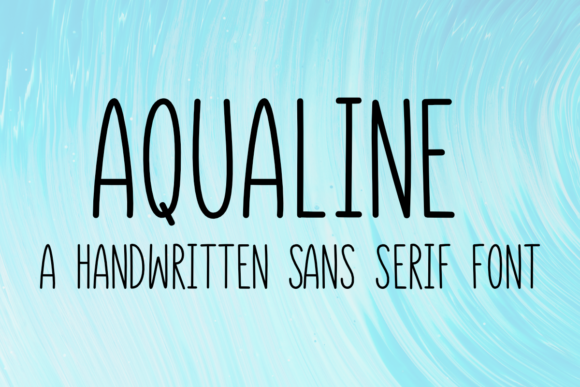
Aqualine: The Striking Sans Serif for Unforgettable Creations
In the world of typography, there's a font that stands tall and proud, captivating the eyes with its simple yet striking presence. Meet Aqualine, the game-changer sans serif font that will transform your creative vision into masterpieces.
Aqualine's tall and slender structure exudes sophistication, making it the perfect choice for projects demanding elegance and clarity. Whether you're crafting logos, posters, brochures, or website designs, this font will add an instant touch of visual allure, leaving an unforgettable impression on your audience.
Crafted with meticulous attention to detail, Aqualine's clean lines and balanced proportions create a harmonious visual rhythm that draws readers in and captivates their attention. Its strong visual impact ensures that your creations will stand out from the crowd, making them impossible to ignore.
But Aqualine is not just aesthetically pleasing; it's also incredibly versatile. Its clean and legible characters make it ideal for lengthy texts, ensuring that your message is conveyed with clarity and impact. Whether you're designing a captivating novel or an informative brochure, Aqualine will elevate your words, making them shine and resonate with your readers.
Aqualine is the ultimate solution for designers, writers, and creatives seeking a font that combines style, functionality, and emotional impact. Its unique design and versatility make it the perfect choice for a wide range of projects, from branding and marketing materials to web design and e-publishing.
With Aqualine, you'll unlock a world of creative possibilities, transforming your ordinary designs into extraordinary works of art. Its effortless charm and captivating presence will leave your audience mesmerized and eager for more.
Experience the Aqualine difference today and elevate your creative projects to new heights. Let this striking sans serif font be your muse, inspiring you to create designs that resonate with your audience and leave a lasting impression.